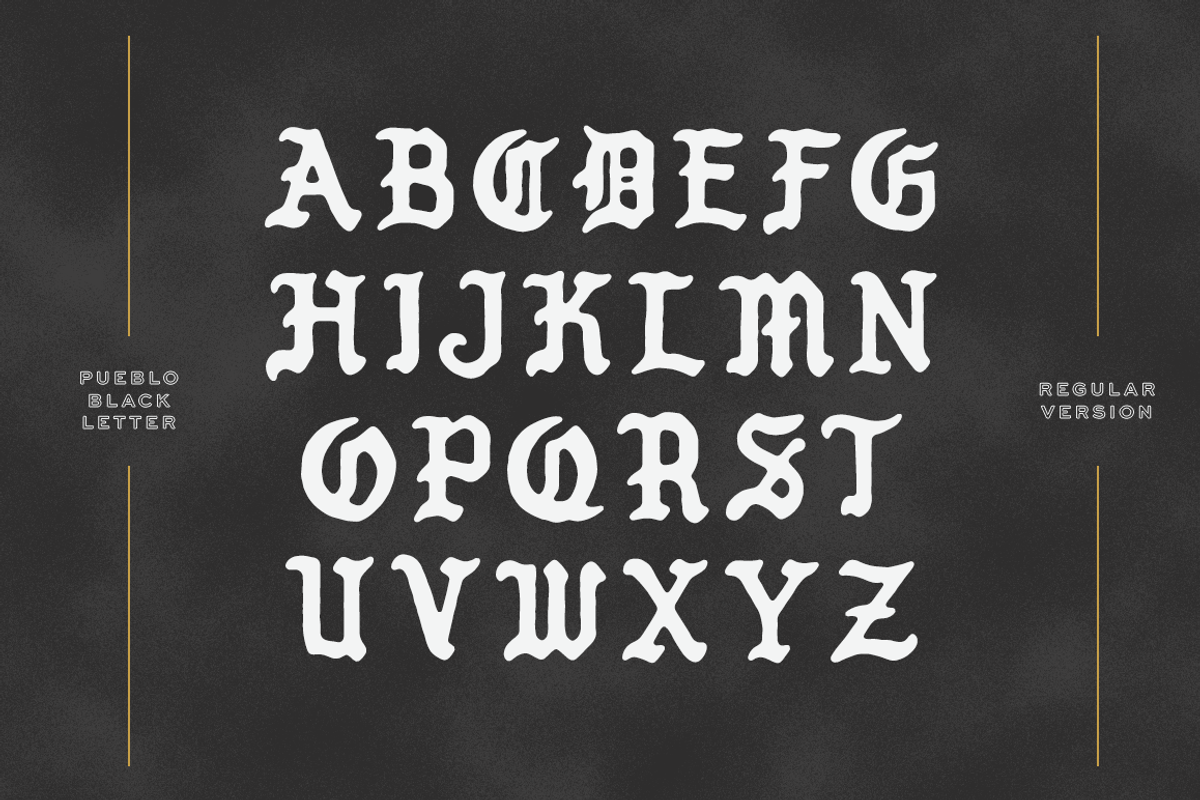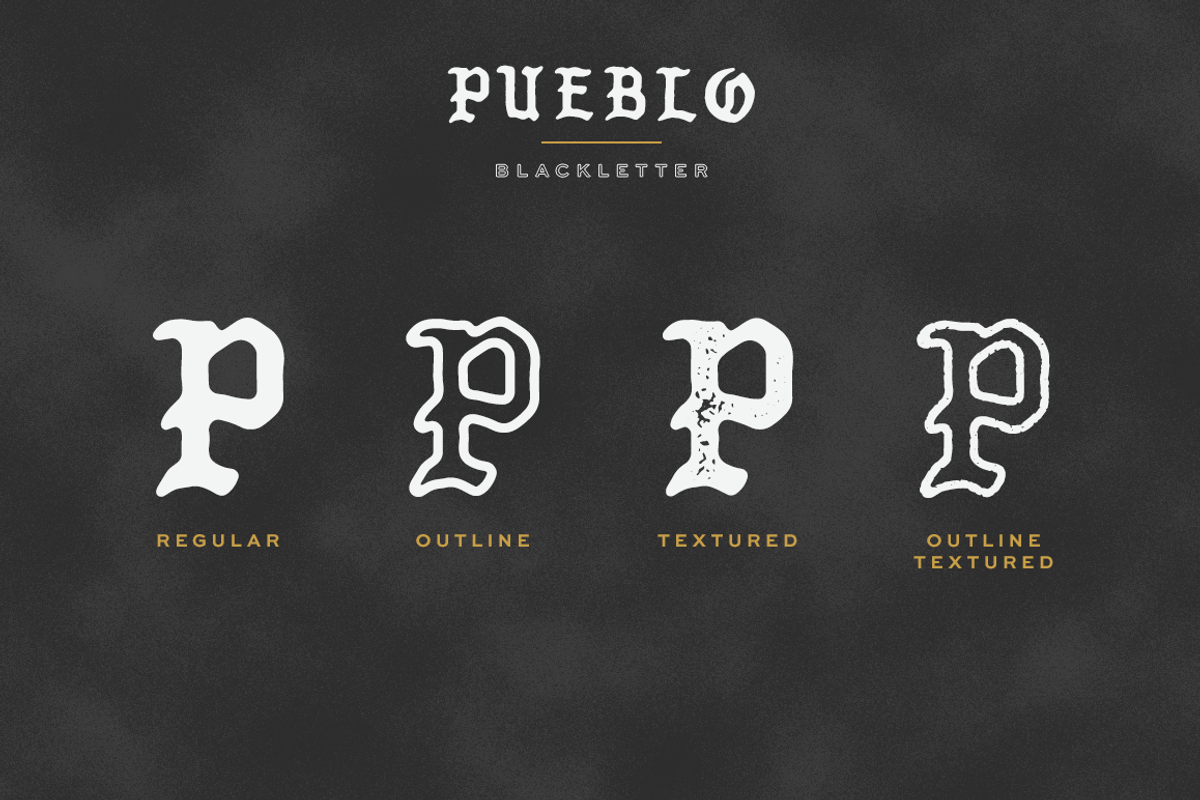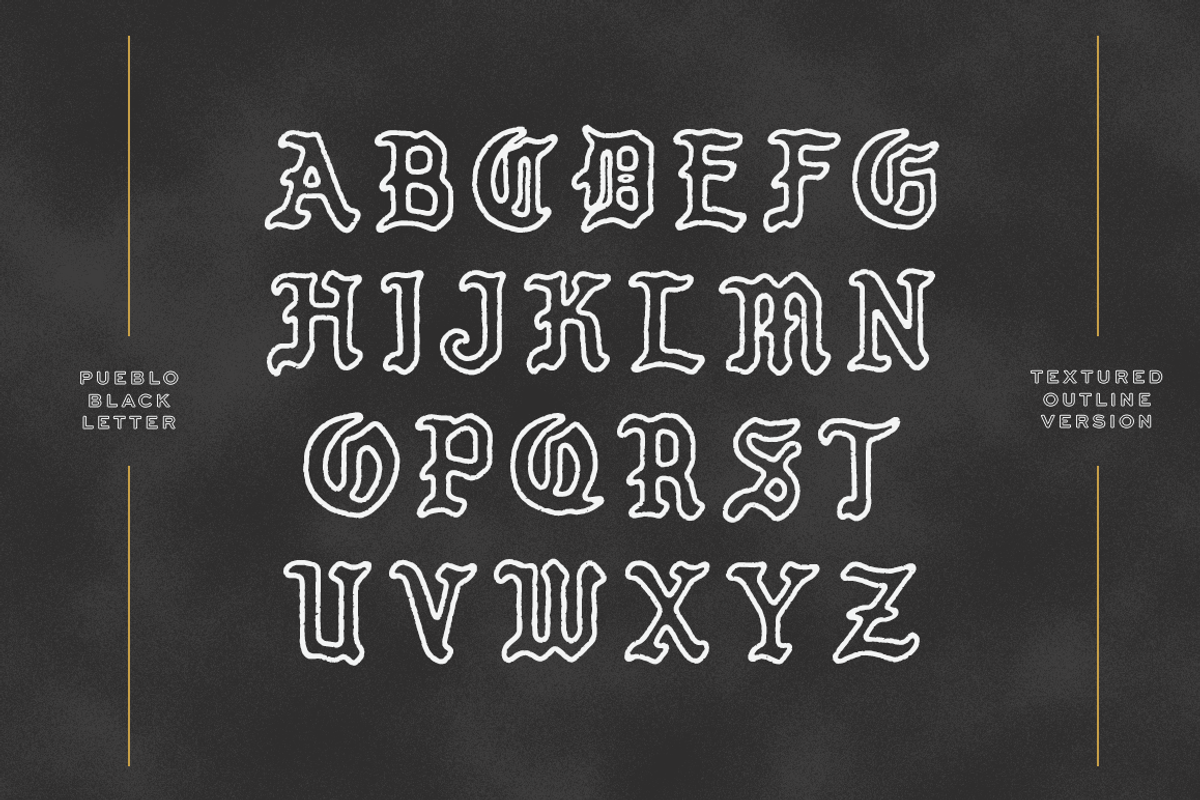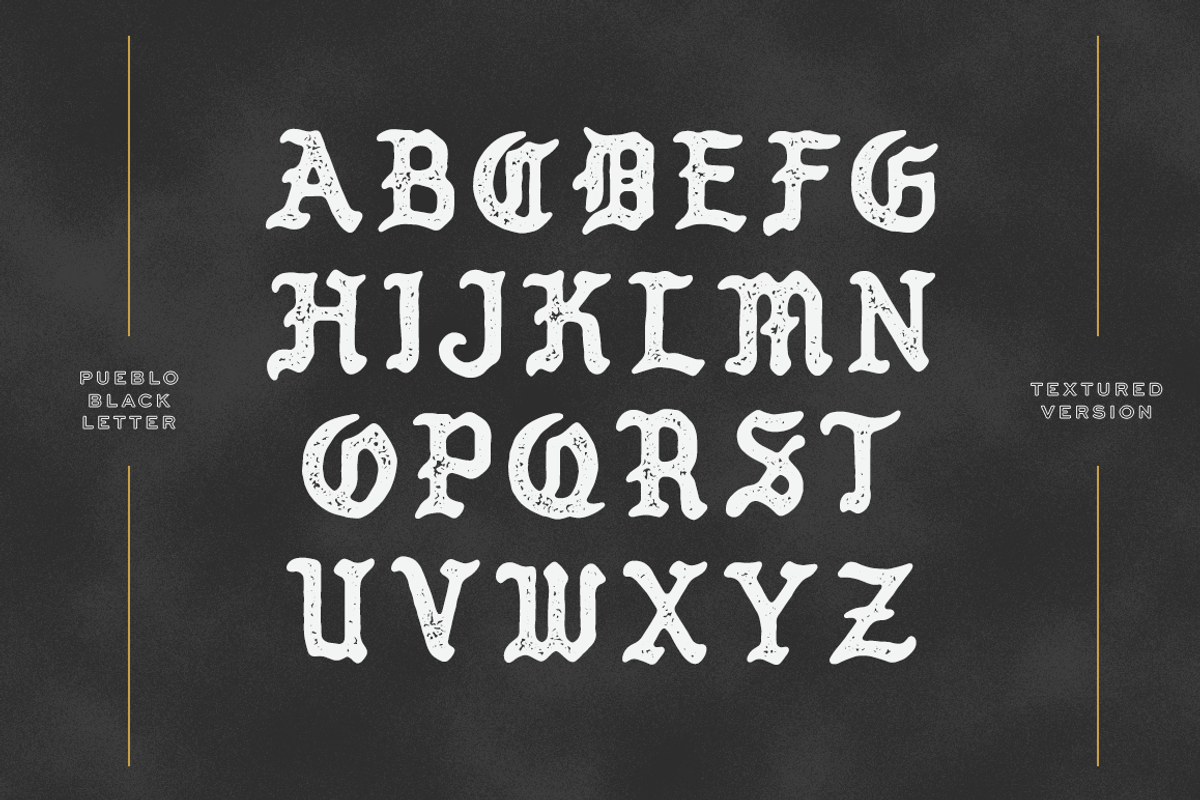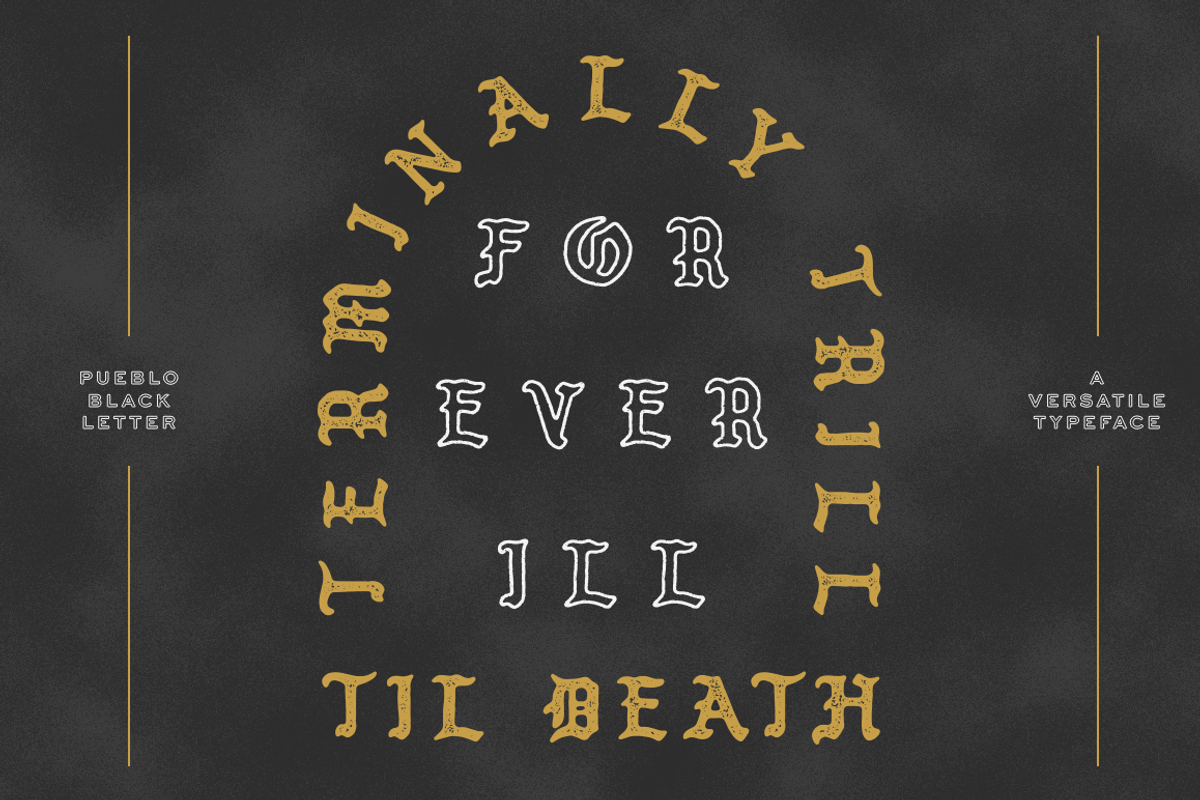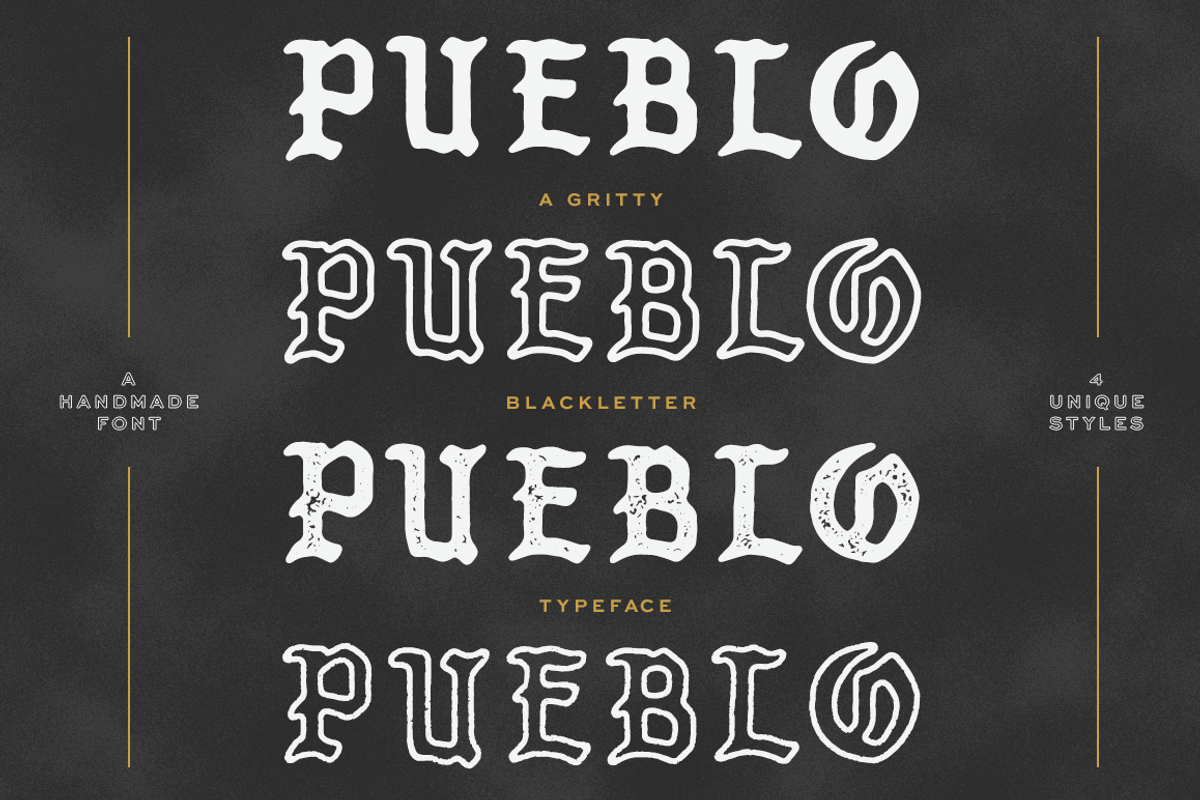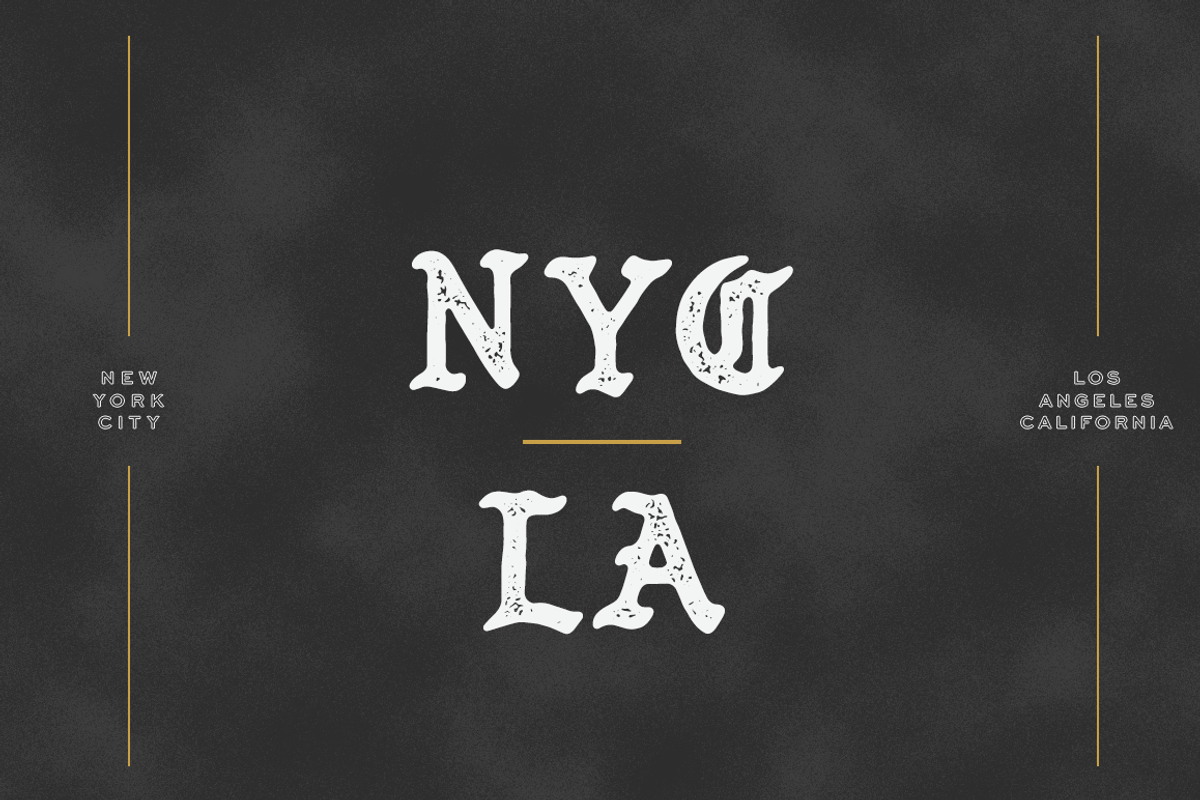
Pueblo Blackletter - 4 Styles
Pueblo Blackletter Typeface is a modern take on classic gothic lettering. The typeface features two versions: Regular and Rough. The 2 versions come in 2 different styles: Filled and Outlined. Pueblo is an uppercase only typeface, with numbers
This is the absolute perfect display typeface for Logos, Illustrations, Apparel Design, Labels, Signage, Etc.